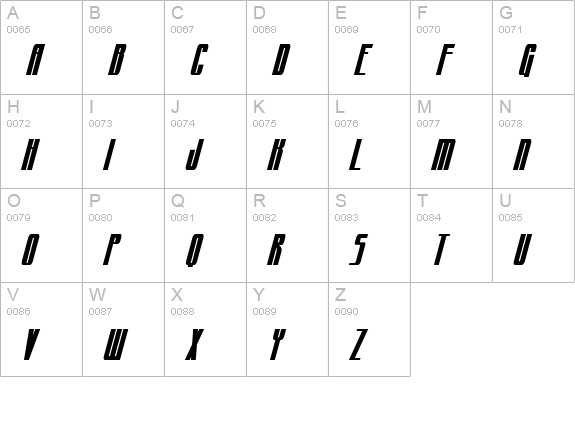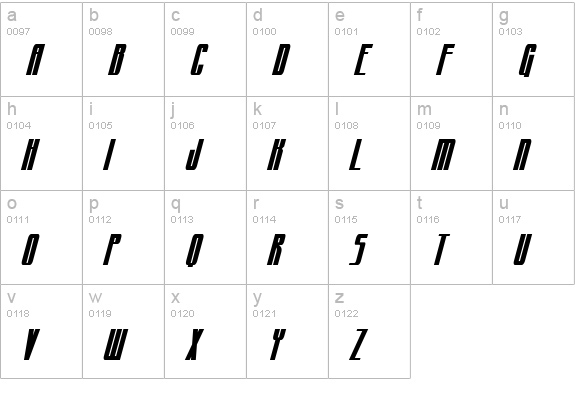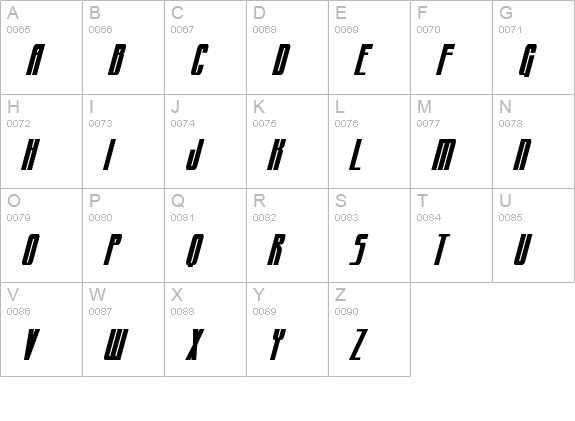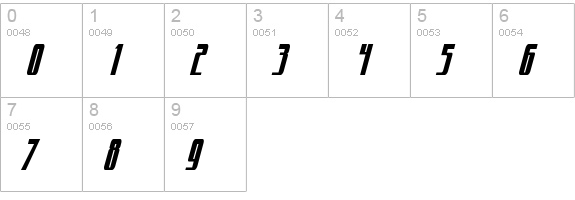
CraterFace Condensed BB Font Details
CraterFace Condensed BB is a distinctive, condensed-width variant in the CraterFace typeface family \xE2\x80\x94 well suited to design and typography projects.
CraterFace Condensed BB font is a modern and stylish typeface that exudes a sense of boldness and sophistication. Its condensed design makes it perfect for headlines, titles, and branding projects that require a sleek and contemporary look. The font features clean lines and sharp edges, giving it a distinctive and eye-catching appearance. What sets CraterFace Condensed BB font apart is that it is available for free download at FontsMarket.com. This means that you can easily access this high-quality font without having to spend a dime. Whether you're a designer looking to add a unique touch to your projects or a business owner in need of a standout font for your branding materials, CraterFace Condensed BB font is the perfect choice. Download it today and elevate your designs with this exceptional typeface.